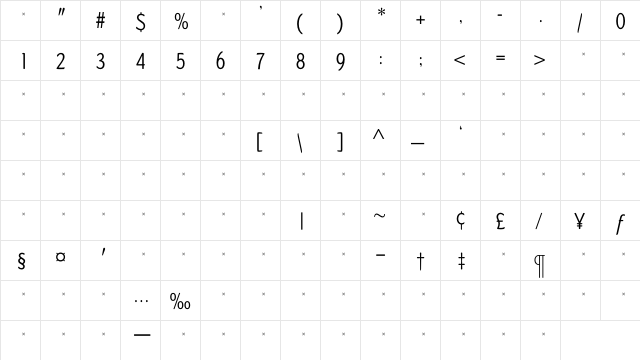
DundeeLightCondTab Regular
Design Context for DundeeLightCondTab Typeface
DundeeLightCondTab offers clean, dependable letterforms without strong stylistic allegiance, making it a practical choice for designers who need flexibility. Its slender proportions lend an understated elegance to any composition. The condensed width makes it efficient for tight spaces without sacrificing legibility.